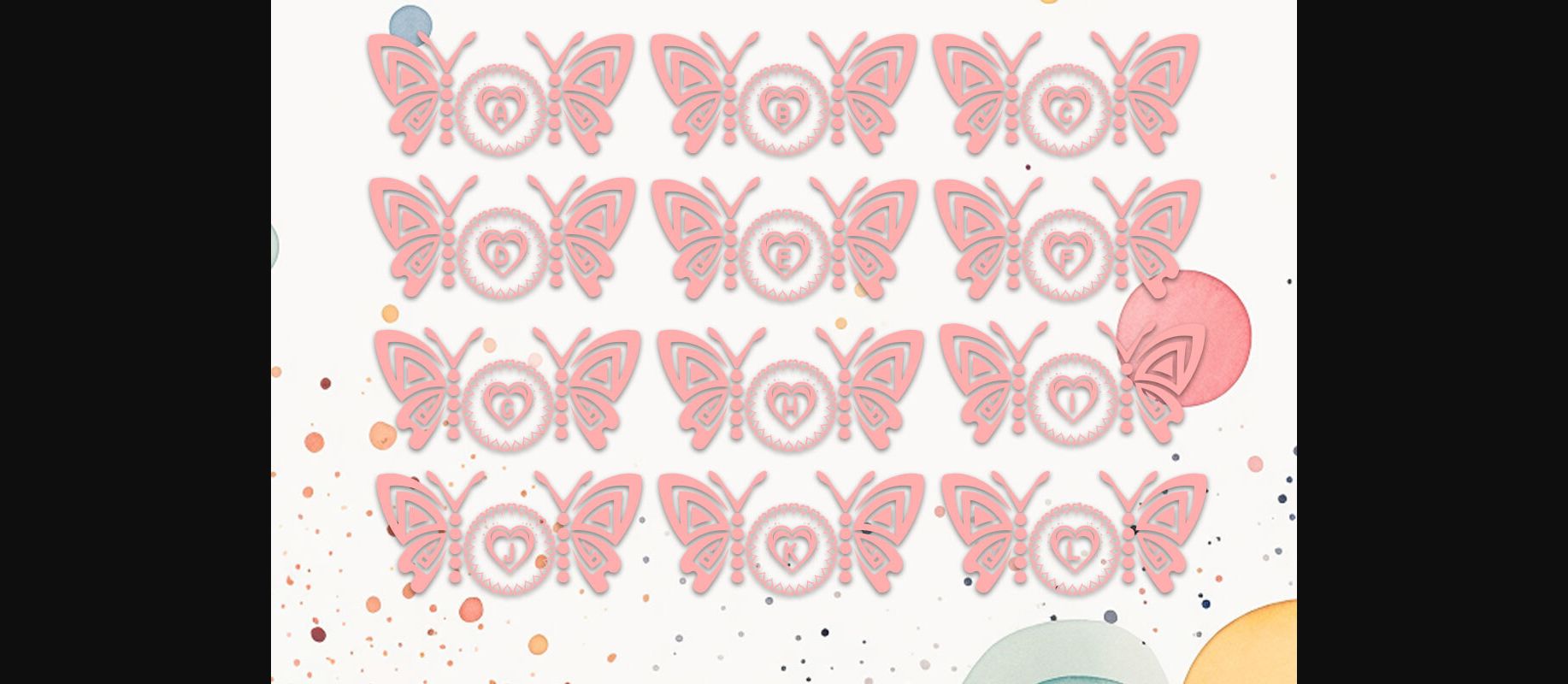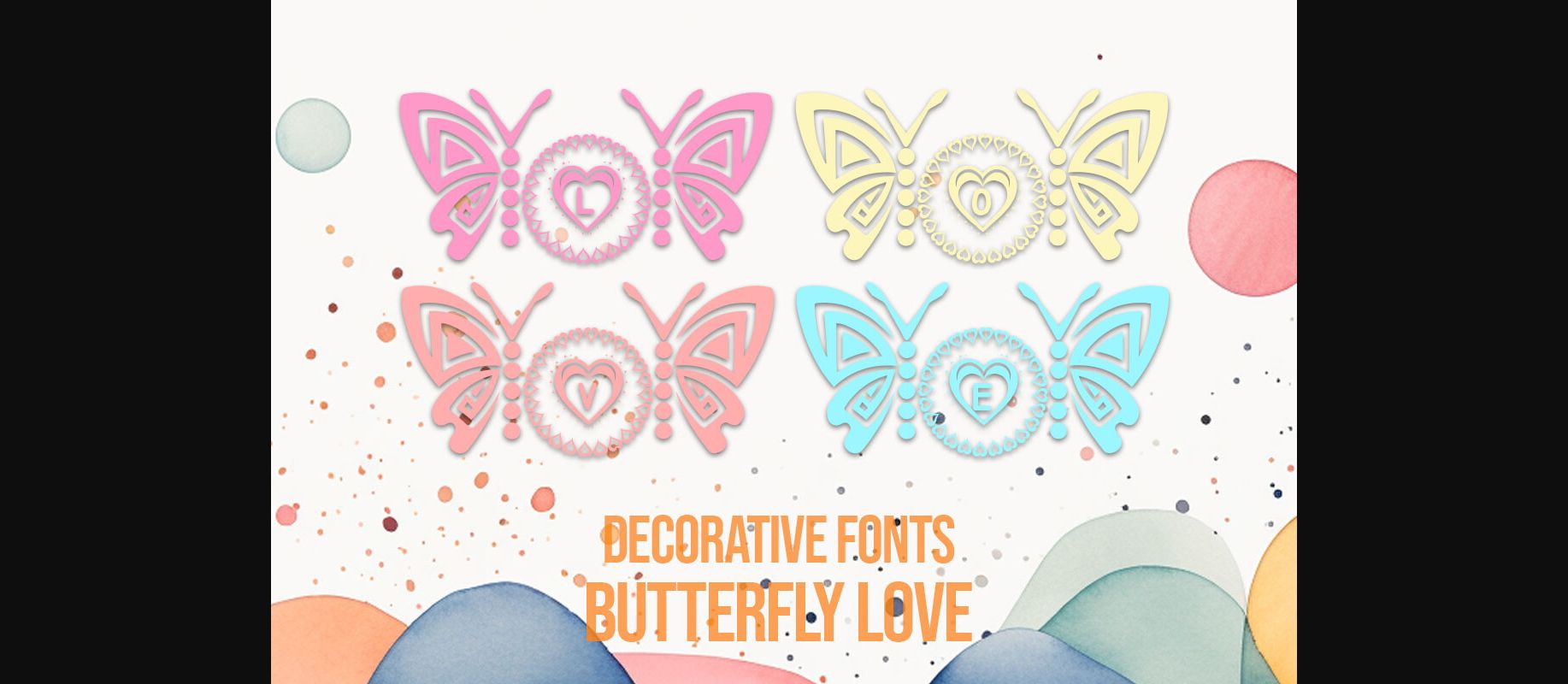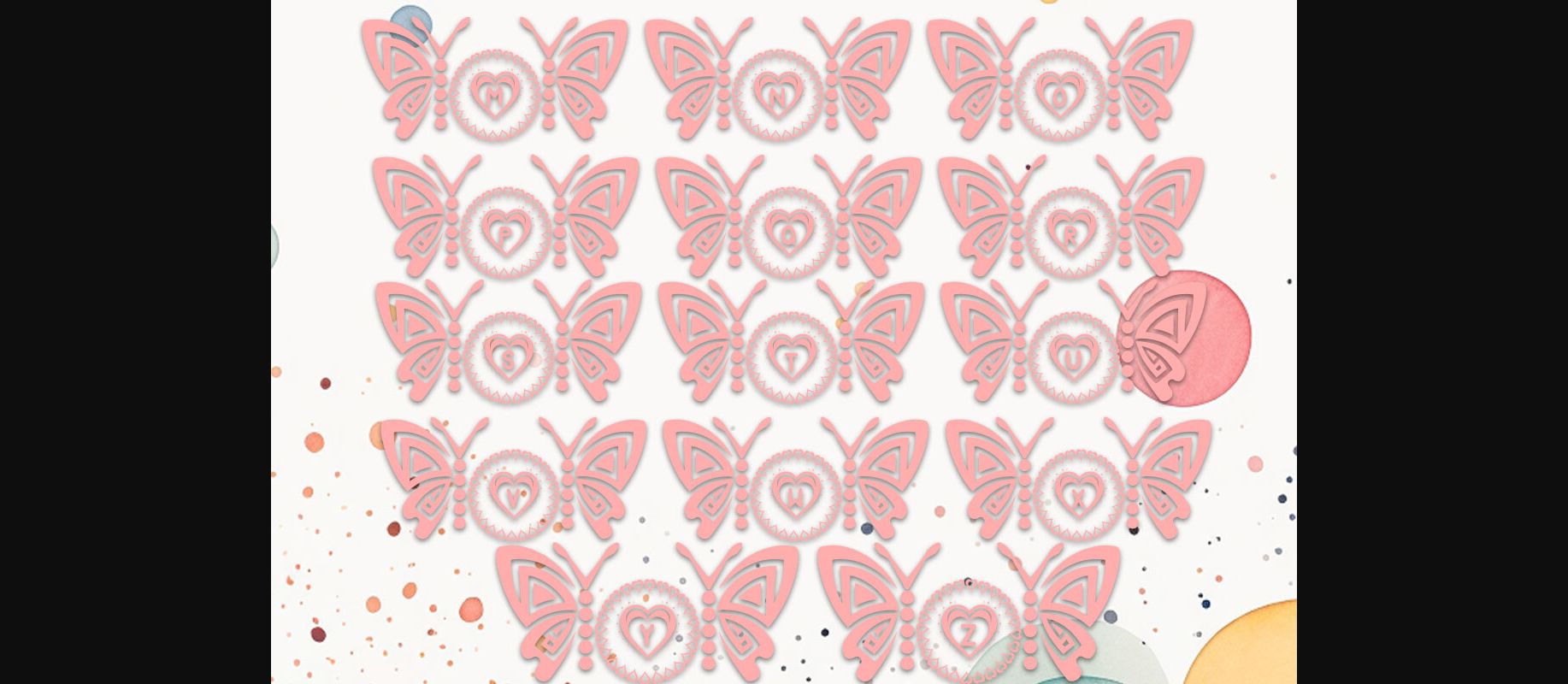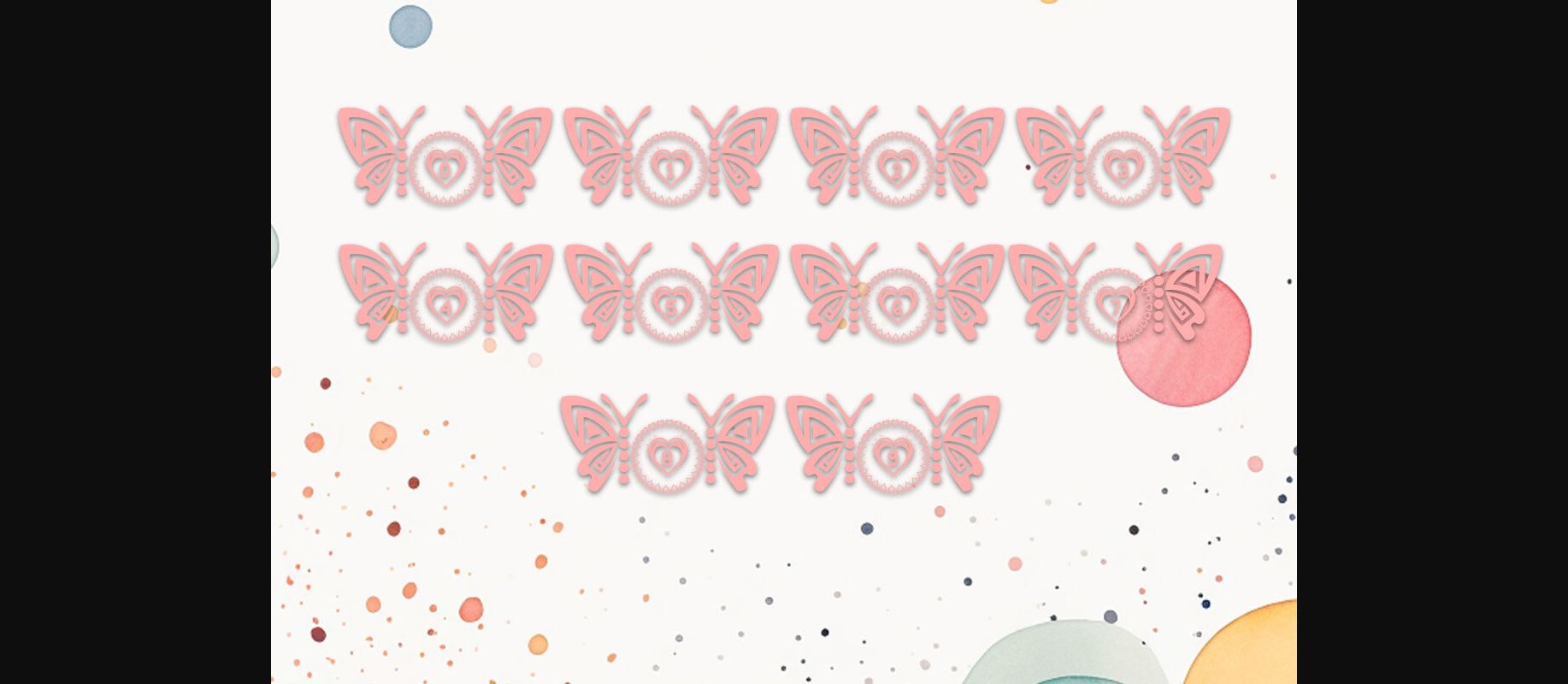
Butterfly Love Font
About Butterfly Love Font
Introducing our captivating ‘Butterfly Love Decorative Fonts’—a stunning collection encompassing 36 meticulously crafted characters. With 26 uppercase letters and a complete set of numbers 0-9, each character is an artistic amalgamation of a heart-shaped letter adorned with exquisite butterfly wings. Perfect for digital creativity, these fonts infuse designs with the enchanting allure of butterfly wings and the emotive essence of heartfelt expressions